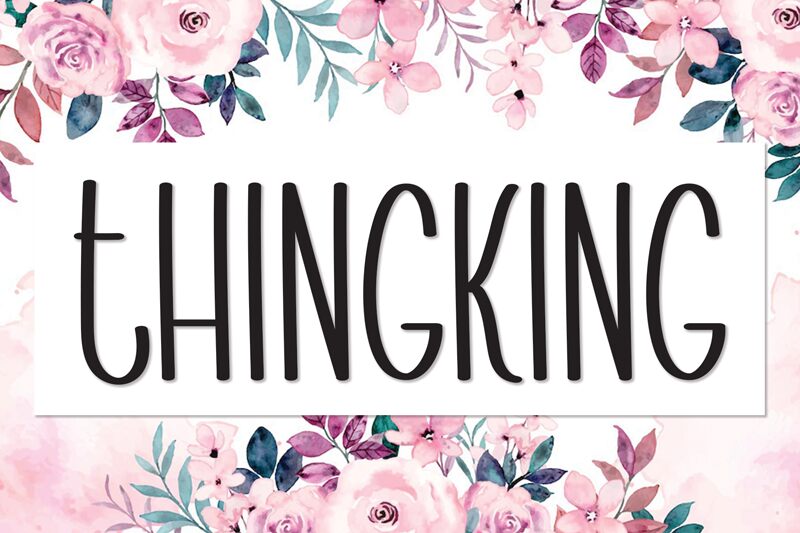
Thingking
Thingking, designed by Scratchones, exudes a relaxed charm with its handwritten style that effortlessly brings a personal touch to any project. Its delicate strokes evoke the elegance of light brushwork, while the condensed letters offer a modern twist that maximizes space without sacrificing readability. With an almost playful rhythm, Thingking stands out for creative endeavors that demand a blend of sophistication and whimsy.
This font finds its home in design contexts where intimacy and individuality are key — from heartfelt invitations to boutique branding or even personalized stationery. Its aesthetic appeal lies in the balance between its gentle form and purposeful structure, making it an excellent choice for designers looking to infuse their work with warmth and character.